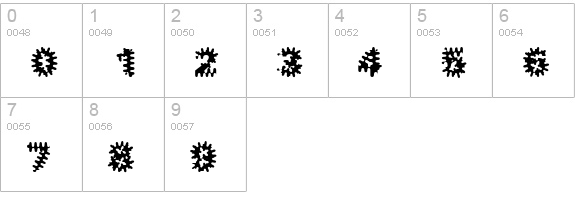
Inkblots Font Details
Introducing Inkblots, a captivating and unique font that brings a touch of artistic flair to any design project. With its eye-catching and expressive strokes, Inkblots is sure to make a lasting impression. This one-of-a-kind font is inspired by the unpredictable patterns created by inkblots. Each character is carefully crafted to resemble the fluidity and organic shapes that emerge from this creative process. The result is a font that exudes creativity and imagination. Inkblots is perfect for a wide range of design applications. Whether you're designing a poster, logo, or social media graphics, this font will add a touch of originality and intrigue. Its versatile nature allows it to be used in both bold and subtle ways, making it suitable for any design style. The best part? Inkblots is available for free! You can easily download this font from FontsMarket.com, a reputable source for high-quality fonts. By making Inkblots freely accessible, we want to empower designers and creatives to experiment and explore their artistic boundaries without any limitations. So why wait? Unleash your creativity and add a dash of artistic charm to your designs with Inkblots. Download this font today and let your imagination run wild.